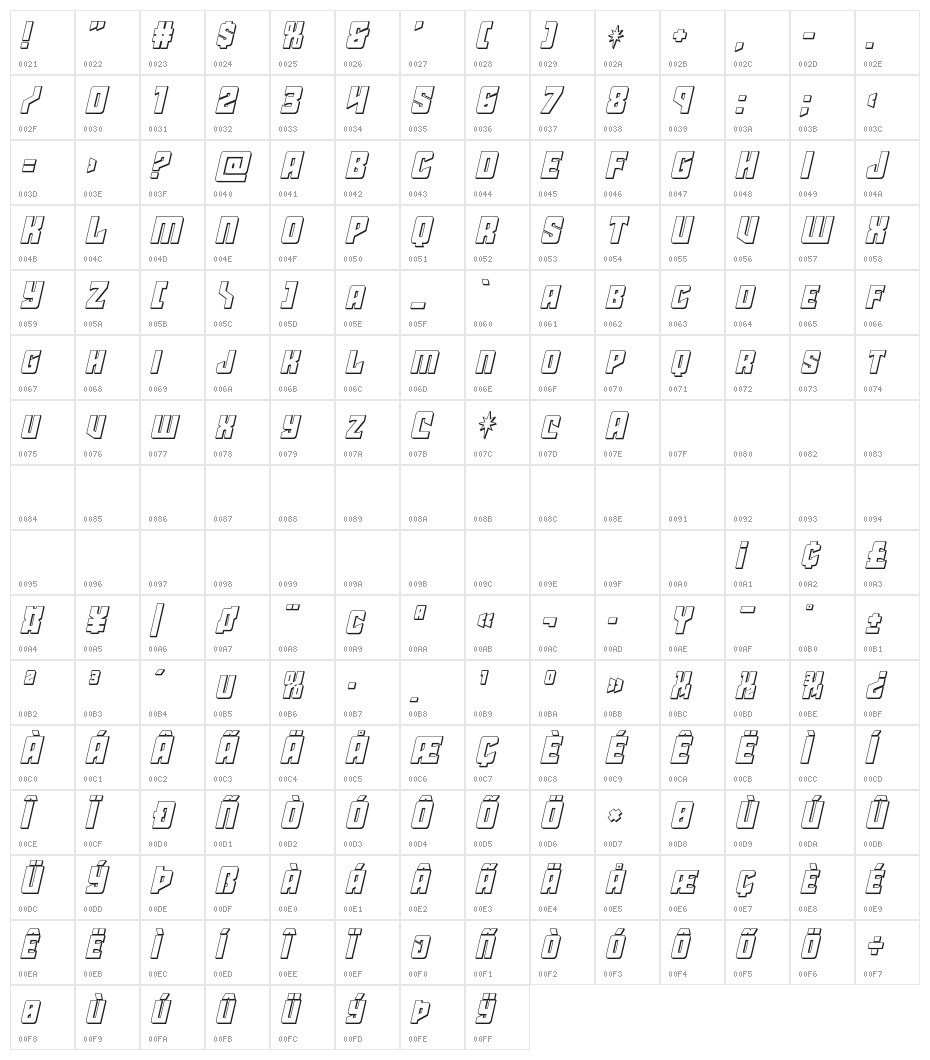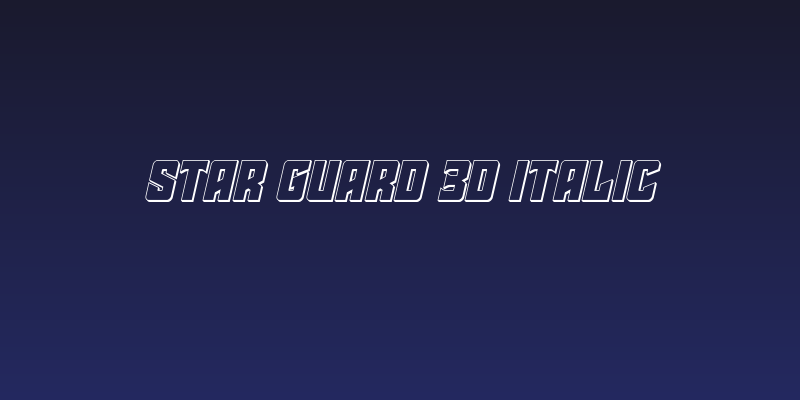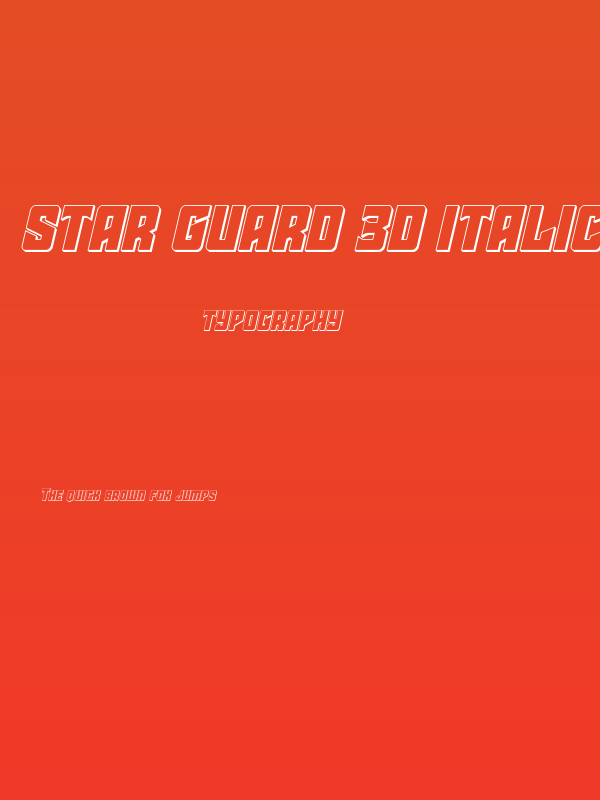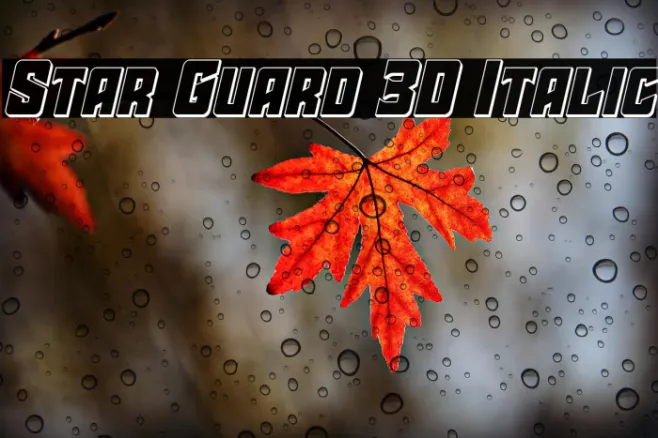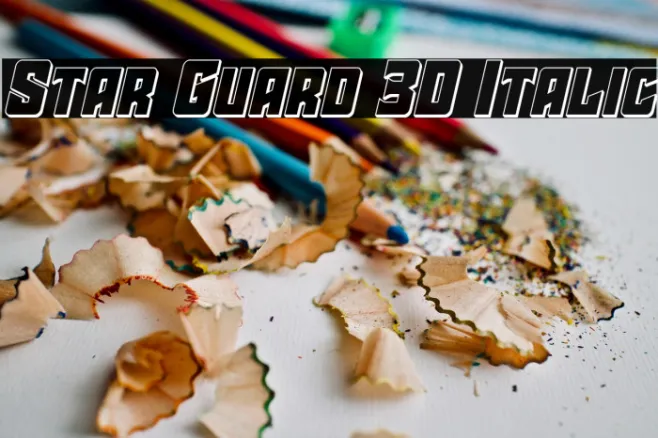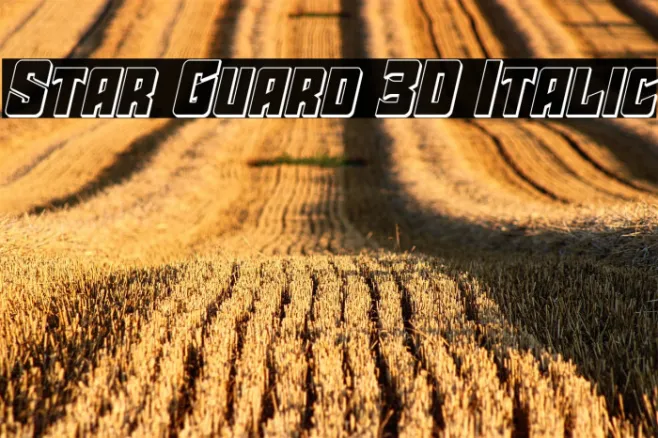
Star Guard 3D Italic Font
Star Guard 3D Italic Description
This font features a bold, three-dimensional design with italicized characters, giving it a dynamic and futuristic appearance. The letters are outlined, creating a shadow effect that enhances the 3D illusion. The style is angular and geometric, with sharp edges and a consistent slant, contributing to its modern and tech-inspired aesthetic. The uppercase and lowercase letters maintain a uniform width, while the numerals and special characters are crafted to match the overall theme. This font is ideal for projects that require a strong visual impact and a sense of motion or speed.
| Proposed Projects | Ideal for video game titles, sci-fi movie posters, tech branding, and sports team logos. |